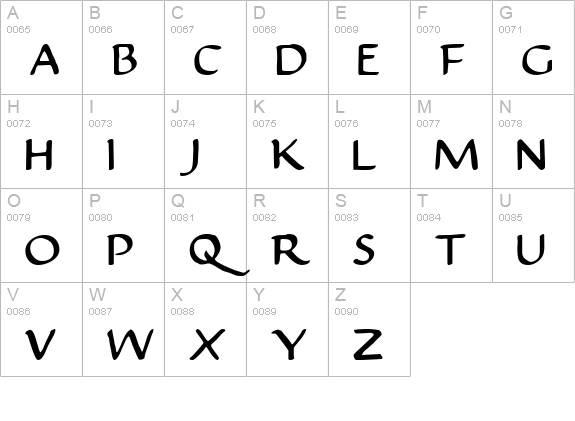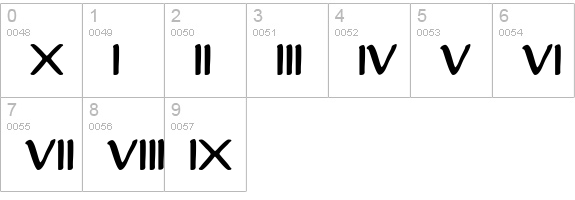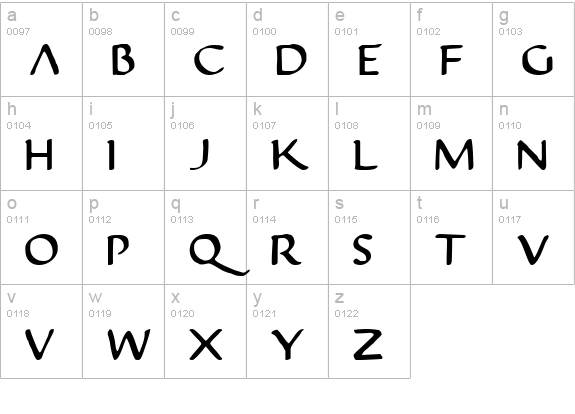
Justinian Font Details
Justinian font is a modern and elegant typeface that exudes sophistication and style. With its clean lines and timeless appeal, Justinian font is perfect for a wide range of design projects, from branding to editorial design. This versatile font is designed to make a statement and capture attention. The best part? Justinian font is available for free download at FontsMarket.com. This means you can easily access this high-quality font without any cost. Whether you are a graphic designer, a student, or simply someone looking to enhance your projects with a beautiful font, Justinian font is a fantastic choice. Download Justinian font today and elevate your designs with its sleek and contemporary aesthetic.